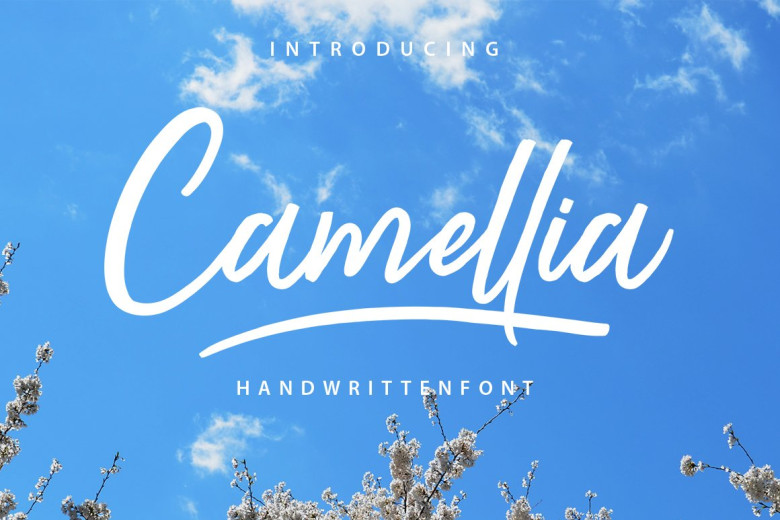
Camellia Script Font
Camellia Script Font designed by sizimon, this is a premium font, are sold on creativemarket, but it was great, it is free today for download. Camellia Script is handmade handwritten font . Very cool for logos, name tag, handwritten quotes, product packaging, merchandise, social media & greeting cards. It contains a full set of lower & uppercase letters, a large range of punctuation, numerals, and multilingual support.